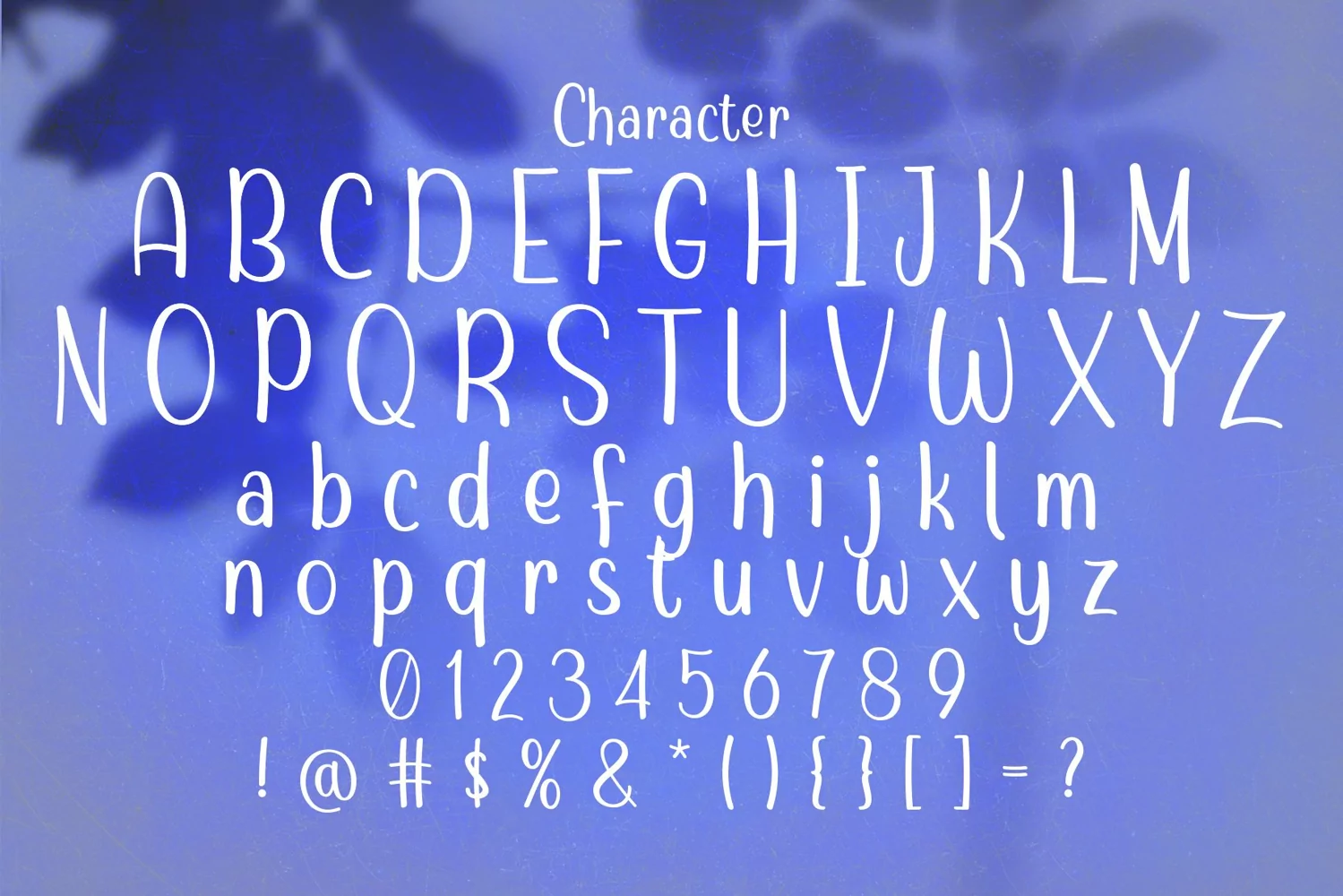
Seviora is a display Typeface. Perfect for display, mockup, quotes, poster, logo, logotype, branding, crafting needs, event needs, signature, wedding needs, packaging, merchandise, header, tittle business card and many more.